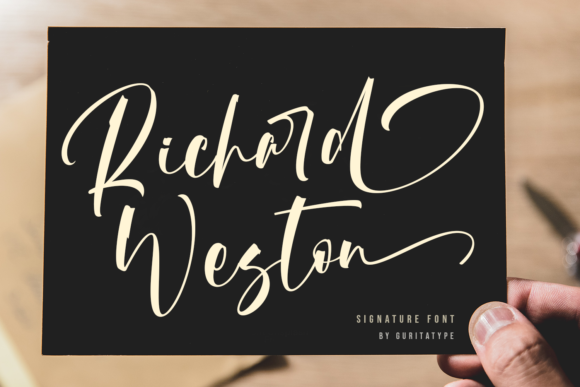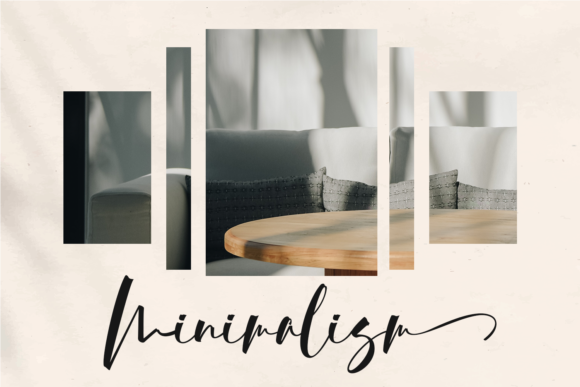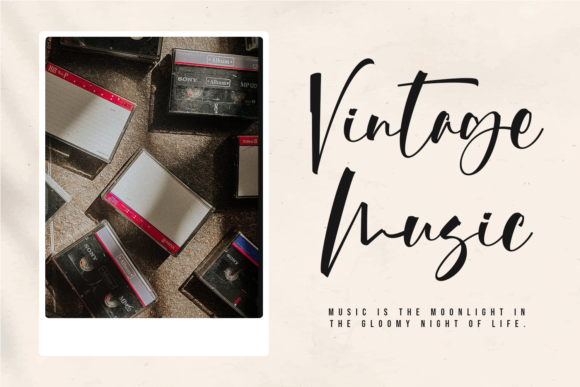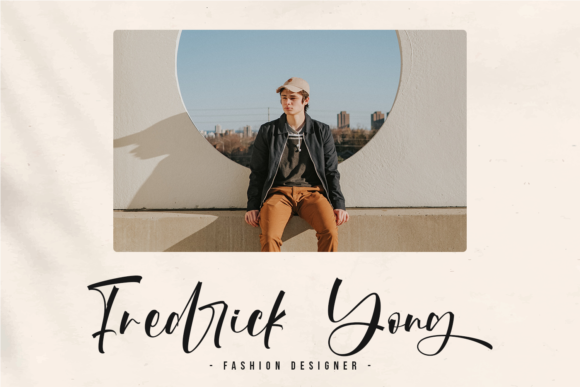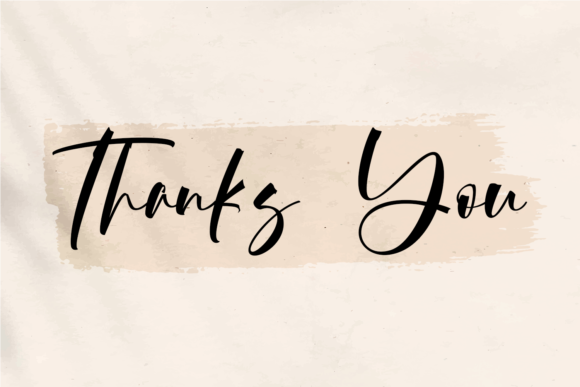
Richard Weston Font
About Richard Weston Font
Introducing “Richard Weston,” a luxurious script font designed to elevate your designs to new heights of sophistication and style. Perfect for a wide range of applications, including SVG designs, shirts, crafts, farmhouse decor, Procreate, Cricut projects, branding, blogs, logos, invitations, and beyond, “Richard Weston” adds a touch of elegance and class to any project.
Crafted with meticulous attention to detail, “Richard Weston” exudes luxury with its exquisite script style. Its flowing lines and intricate details create a sense of opulence that is sure to captivate your audience and leave a lasting impression.
But “Richard Weston” offers more than just visual appeal—it’s also highly versatile. Its PUA encoding allows for easy access to all glyphs and swashes, giving you the freedom to customize your text and add unique flourishes to your designs with ease.
Whether you’re a seasoned designer or just starting out, “Richard Weston” is the perfect companion for bringing your creative vision to life. Its luxurious script style adds a touch of sophistication to any project, making it a standout choice for those looking to make a statement with their designs.
So why settle for ordinary typography when you can elevate your work with the luxurious charm of “Richard Weston”? Unlock its potential today and let its exquisite script font transform your creations into works of art that dazzle and delight.